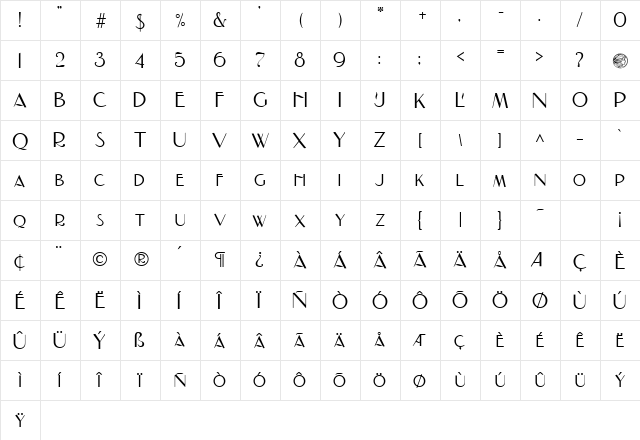
Nadall Normal
Design Context for Nadall Typeface
Nadall is a composed and adaptable typeface that performs quietly and consistently across a wide range of design contexts.